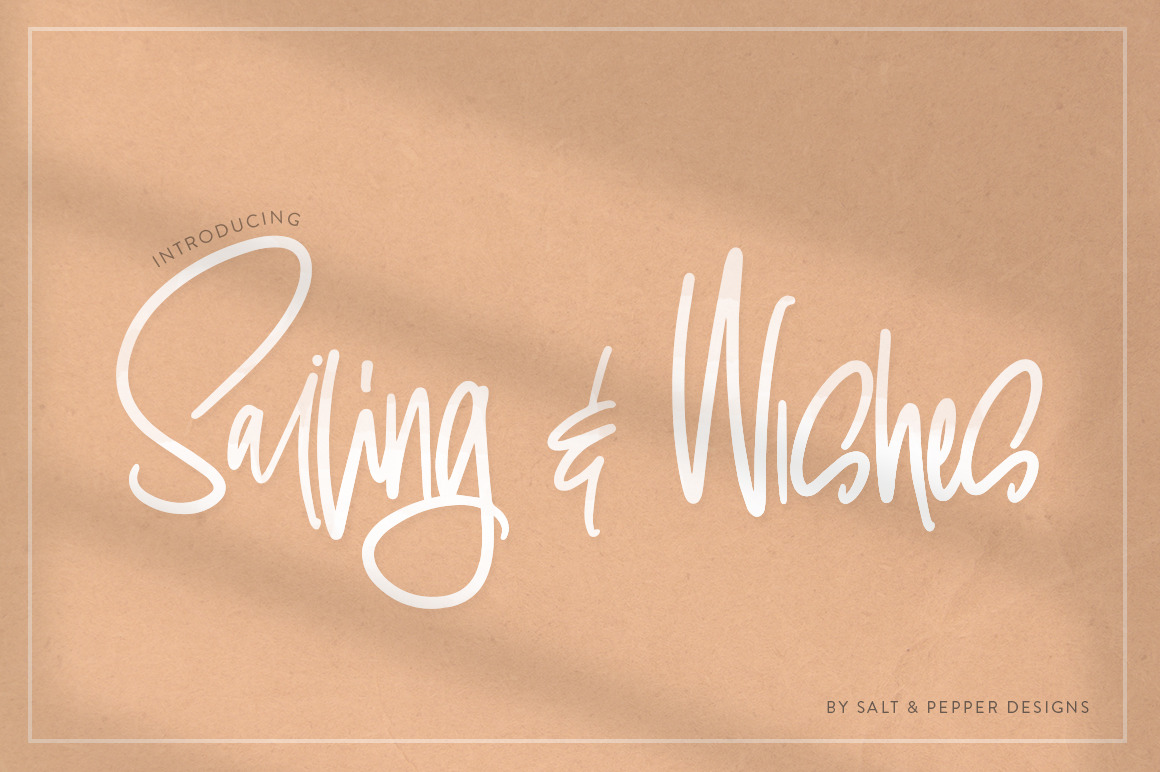
Sailing & Wishes Script Font
Sailing & Wishes is a brand new, hand drawn font from Salt & Pepper Designs. We may be biased but we do think this is one of the best fonts we have ever created! It works so well in so many design settings and we can’t wait to see what you do with it. Enjoy!